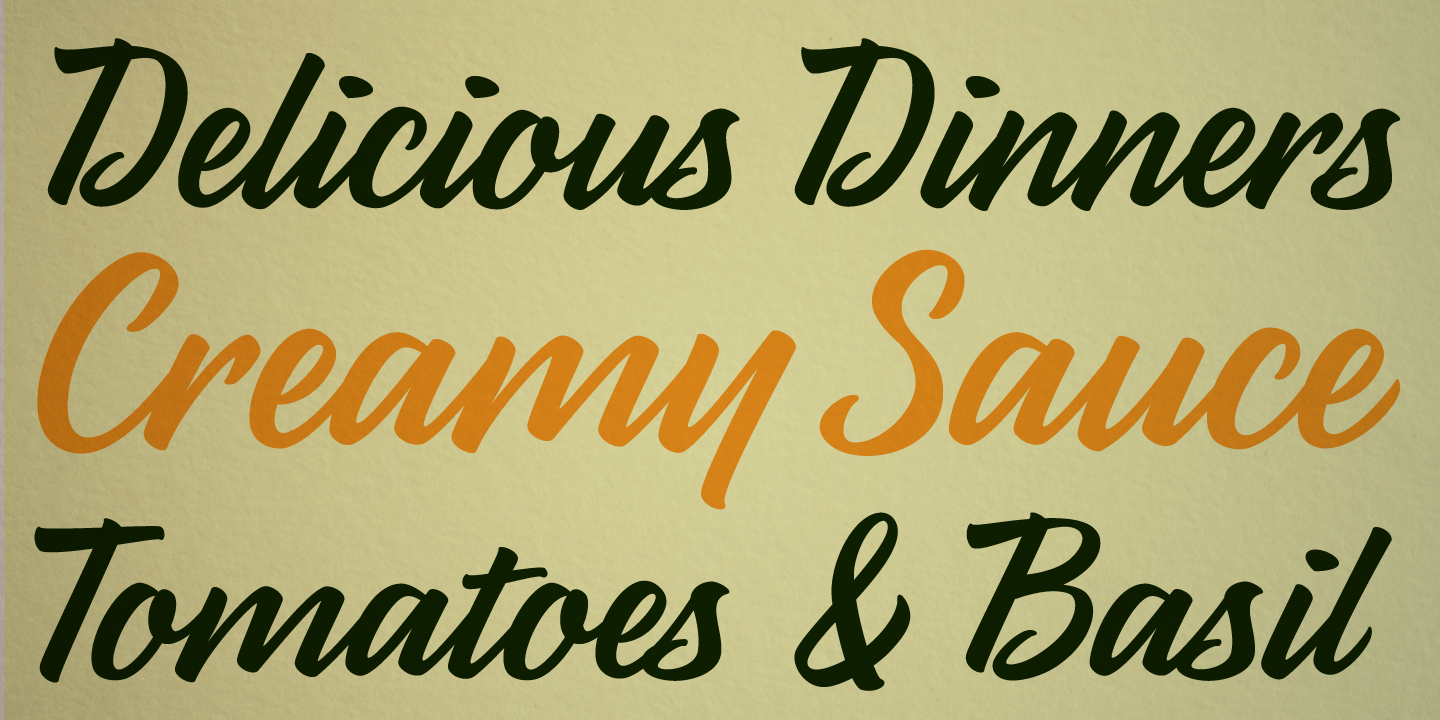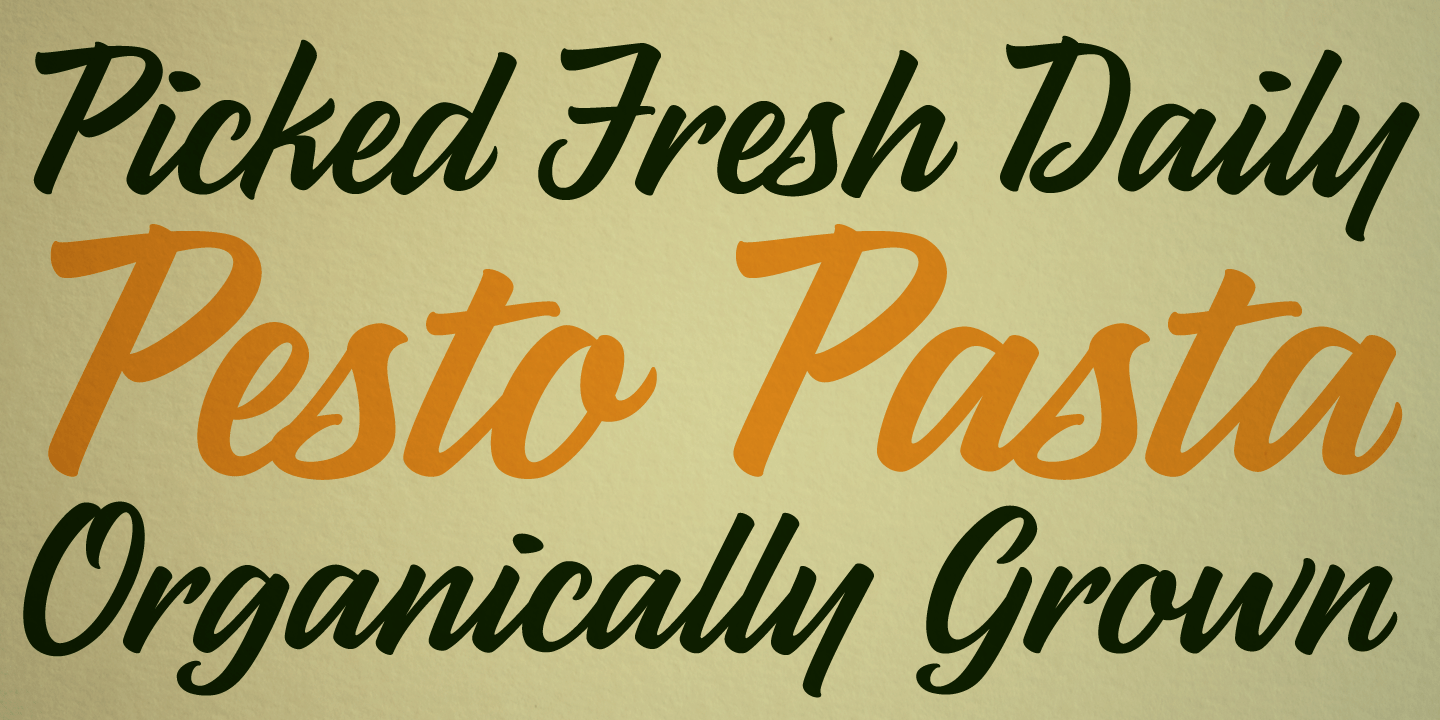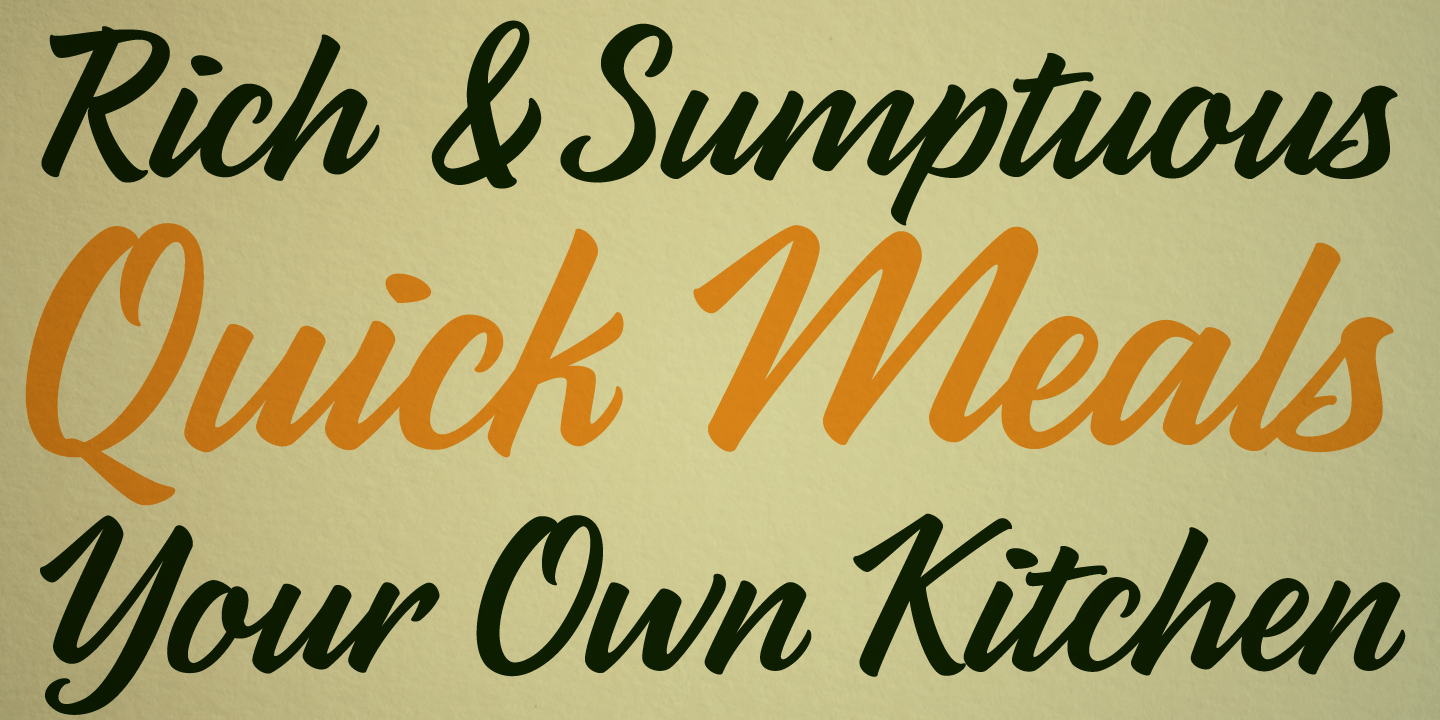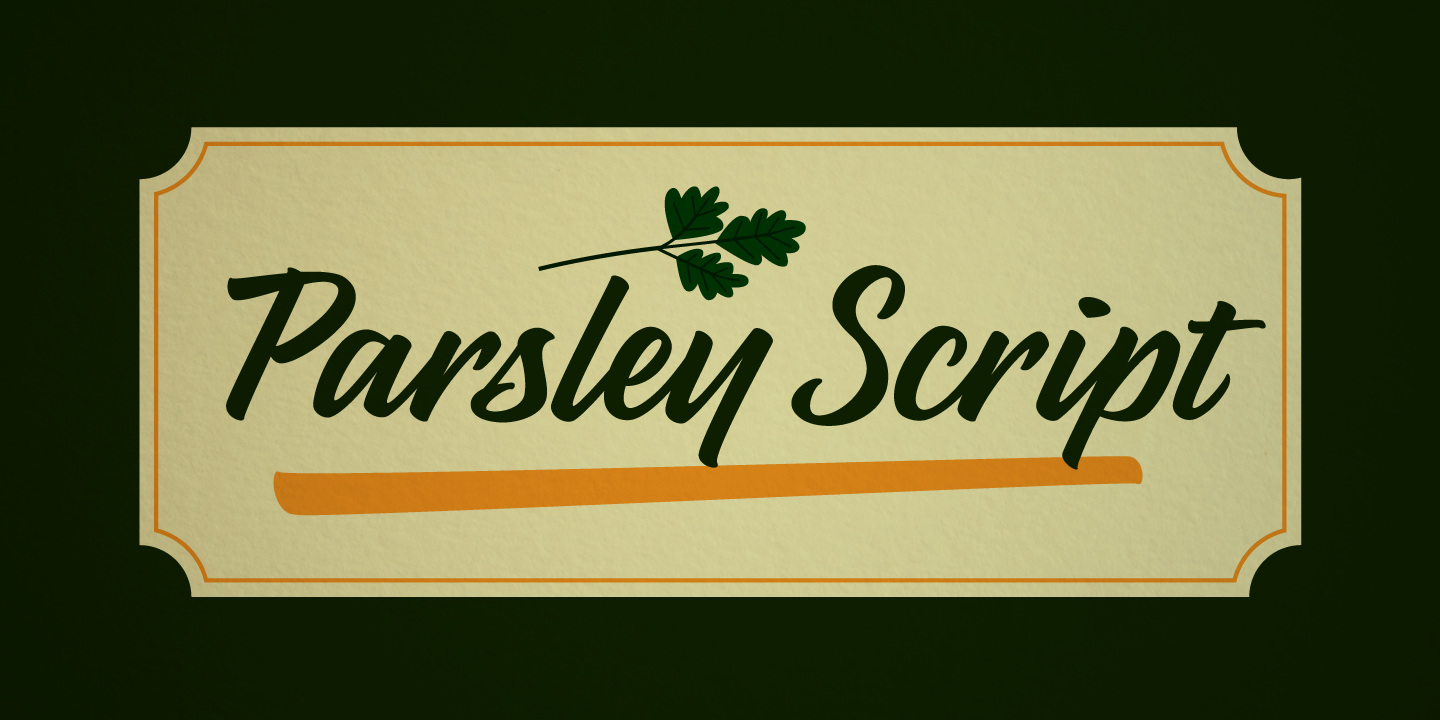
Parsley Script
About Parsley Script
Parsley Script is a script face done in the pointed brush style. Sketched out on the wrong side of Epson premium glossy photo paper with a Pentel Pocket Brush Pen. This face is perfect for package design or whatever else.